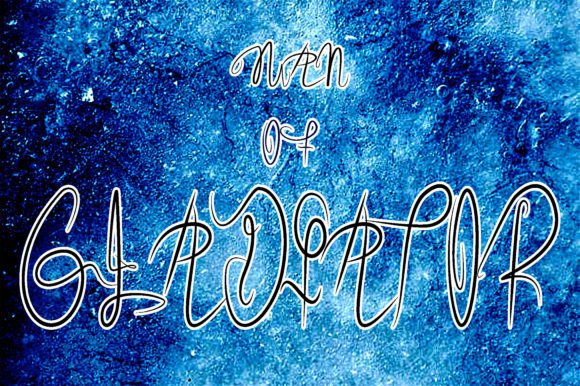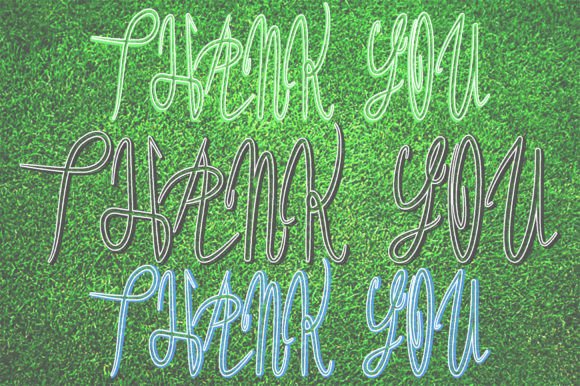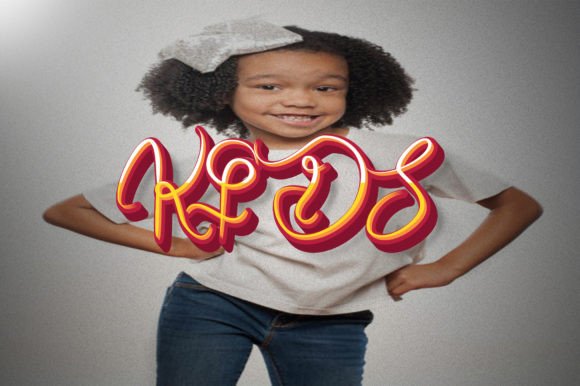
About Father Font
“Father” is a playful and adorable handwritten font that can effortlessly complement a wide range of design projects. Whether you’re seeking a font for your Instagram posts or a calligraphy script for a DIY endeavor, “Father” has the potential to transform your creative ideas into genuine works of art.
This font’s versatility makes it an excellent choice for a variety of applications. It’s particularly well-suited for crafting quotes, designing shirt graphics, creating websites, establishing brand identities, developing designs for children, curating blog content, fashioning logos, crafting invitations, and more. With “Father,” you have a creative tool at your disposal that can add charm and personality to your projects.
By incorporating “Father” into your design work, you can infuse your creations with a fun and whimsical vibe that appeals to a wide audience. Its handwritten style adds a sense of authenticity and creativity to your designs, making them stand out and resonate with your target audience, no matter the context or purpose.